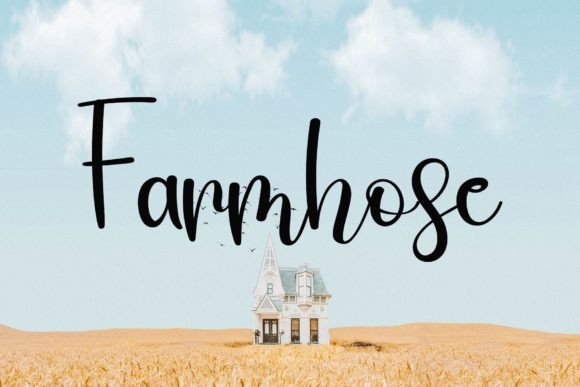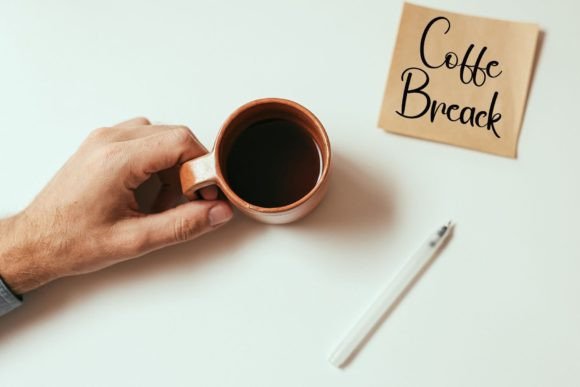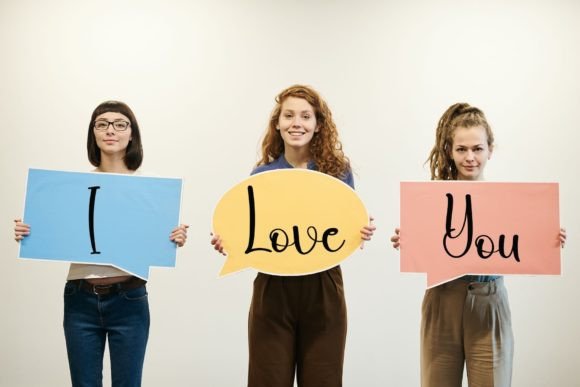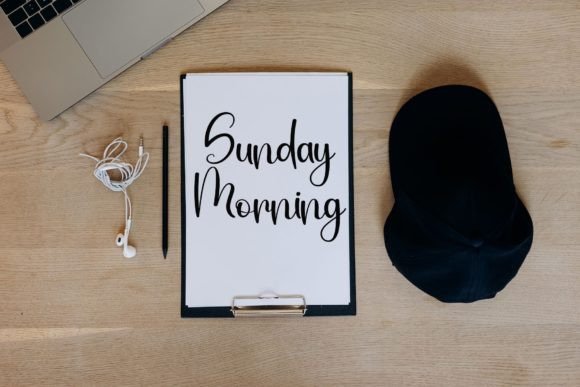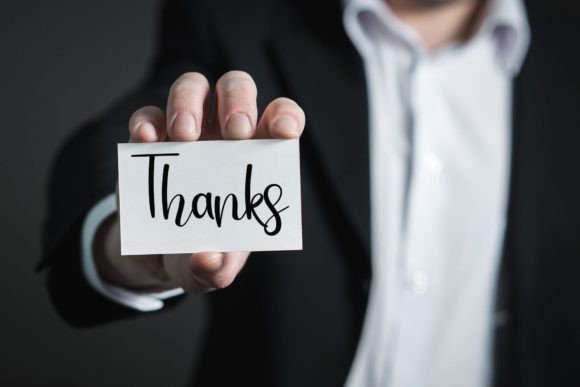
Unlock Your Creativity with the Bluband Font
Have you ever sat in front of a blank canvas, staring at a blank page, and suddenly, a spark of creativity strikes? The ideas start flowing, and before you know it, you’re lost in a world of colors, textures, and typography. For designers, this moment is all too familiar, and it’s exactly why we’re excited to introduce you to the Bluband Font.
This sweet and natural handwritten font is the perfect companion for your next design project. Its unique style makes it incredibly versatile, allowing you to experiment with a wide range of designs. Whether you’re working on a branding project, a digital illustration, or a wedding invitation, the Bluband Font is the perfect addition to bring your vision to life.
With the Bluband Font, the only limit is your imagination. Its natural charm and effortless feel make it a valuable asset for designers looking to add a personal touch to their work. So why settle for a generic font when you can have a font that truly reflects your personality and style?
Key Features of Bluband Font
- Unique Characteristics: The font features a distinctive blend of rounded and geometric shapes, creating a visually appealing and modern aesthetic.
- Kerning and Ligatures: The font includes advanced kerning and ligature features, ensuring smooth text rendering and professional-looking typography.
Bluband Font Review
I recently had the chance to work with the Bluband Font, and I must say it’s an interesting addition to the world of typography. Here’s my honest review.
- The Bluband Font has a unique, playful feel to it, which can be perfect for creative projects like logos, branding, and children’s materials.
- The font is highly customizable, allowing designers to easily adjust the weight, width, and even the individual letterforms to suit their needs.
- The Bluband Font also supports a wide range of languages, making it a great option for global projects.
- The Bluband Font may not be the best choice for serious, formal projects due to its playful nature.
- The font can be quite busy and may not be readable at small sizes or in certain contexts.
- The customization options, while extensive, can also make the font feel overwhelming to work with.
While the Bluband Font has its limitations, it’s a solid choice for designers looking for a fun, creative font. With some careful consideration of its uses and limitations, it can be a great addition to any design project.
Bluband Font: A Practical Application Guide
Tips for Getting the Most Out of Bluband Font
Here are a few tips for getting the most out of the Bluband Font:
- Use the font in conjunction with other design elements to create a cohesive look.
- Use the font in combination with other fonts to create a unique and visually appealing design.
The Bluband Font is a versatile font that can be used in a variety of design applications. Some common use cases include:
- Brand identity design
- Print design
- Web design